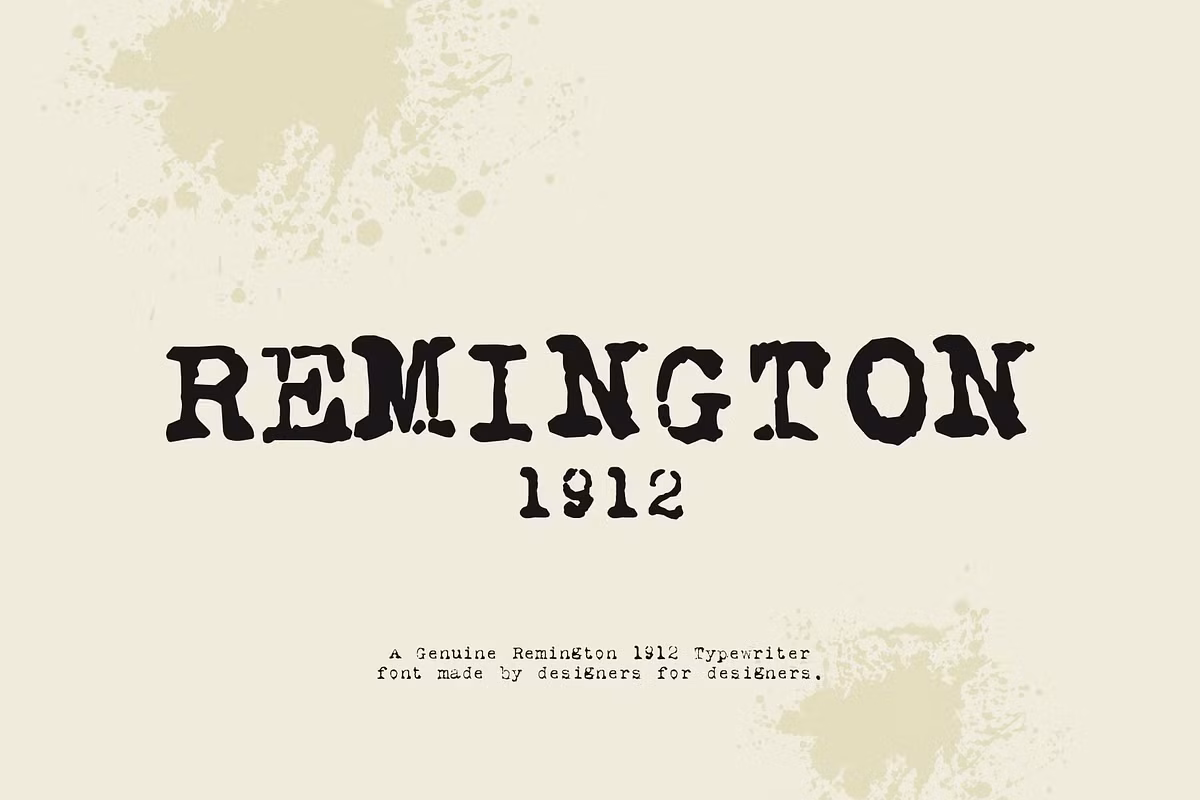
Remington 1912 Typewriter Font Free Download
Remington 1912 Typewriter Font Free Download is a beautifully authentic typewriter-style font inspired by vintage machines of the early 20th century. Please note: you must purchase this font for commercial use, but you can test it through a free download. With its worn edges, monospaced characters, and mechanical charm, Remington 1912 is perfect for retro design projects, historical themes, book covers, stationery, and branding that calls for a touch of nostalgic realism.
This font captures the essence of analog communication—evoking the sound and texture of classic typewritten letters. Whether you're creating a mystery novel title, a retro logo, or an old-school zine, Remington 1912 Typewriter Font Free Download brings historical depth and vintage personality to your work. Fully compatible with Adobe Illustrator, Photoshop, Canva, and more, it’s ready for both print and digital use. Download it today for personal use and type your story in timeless style.